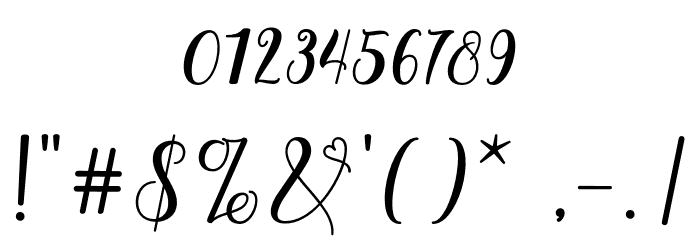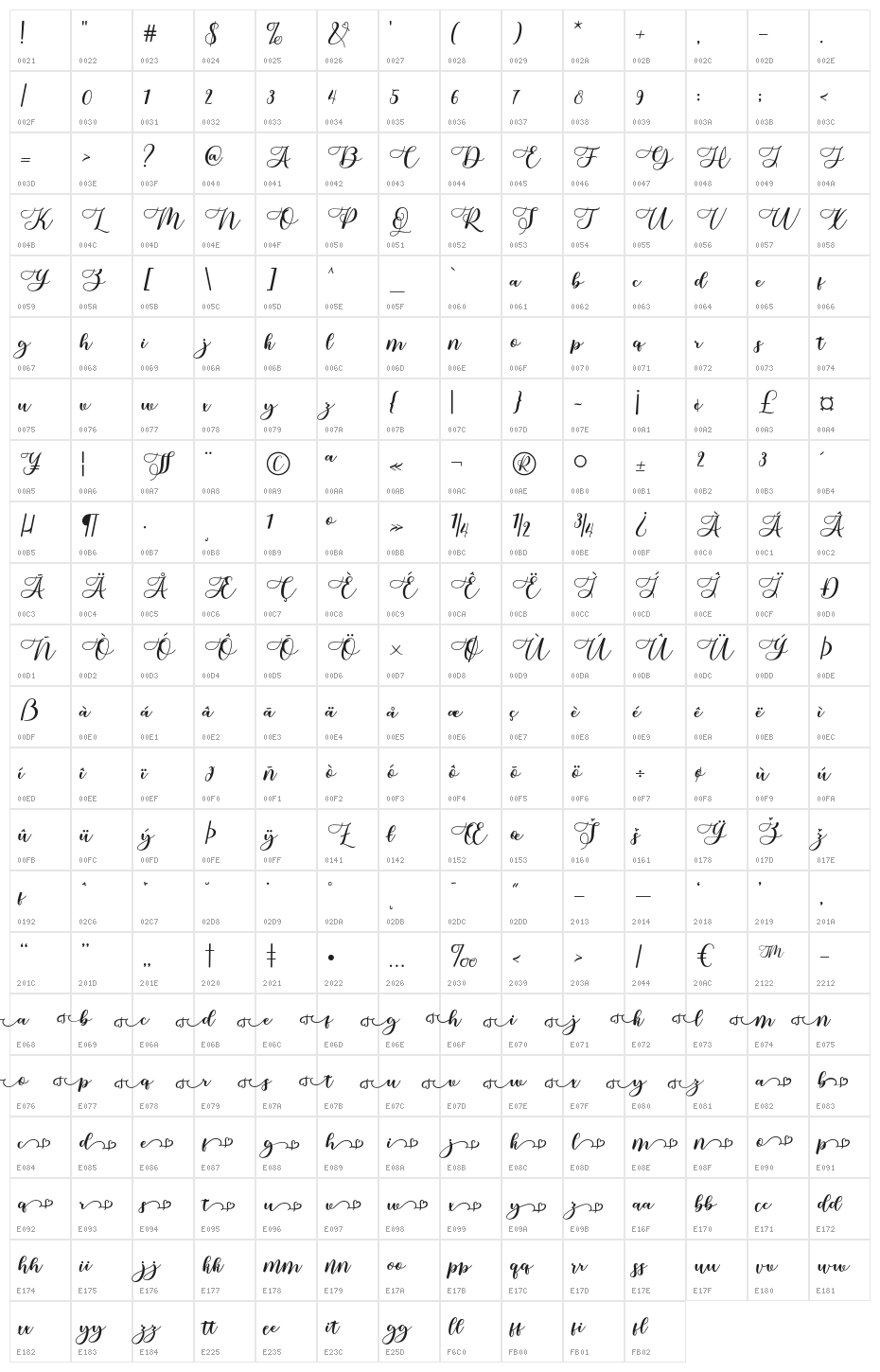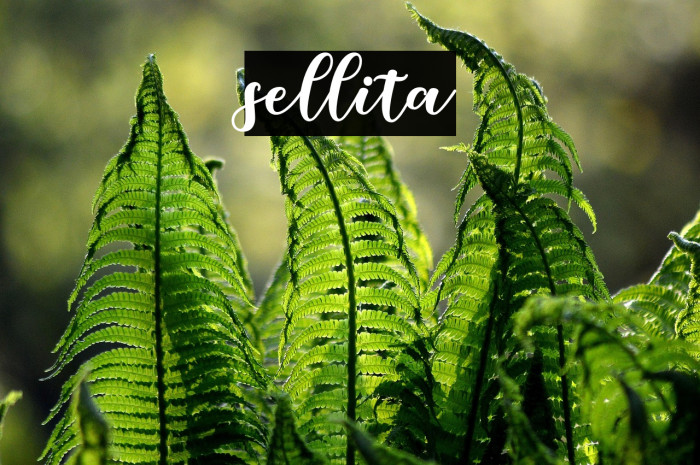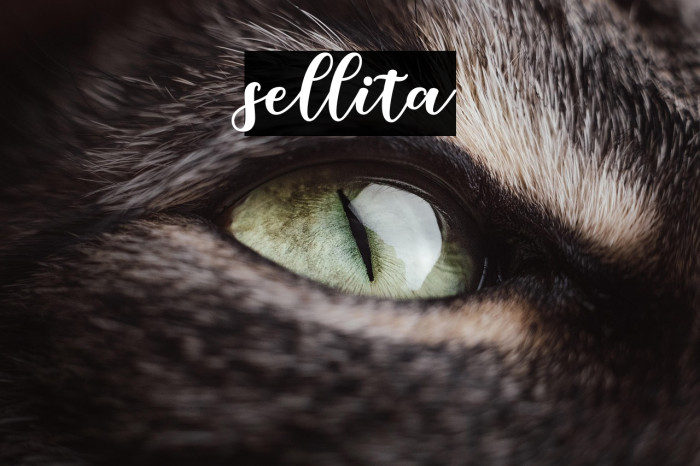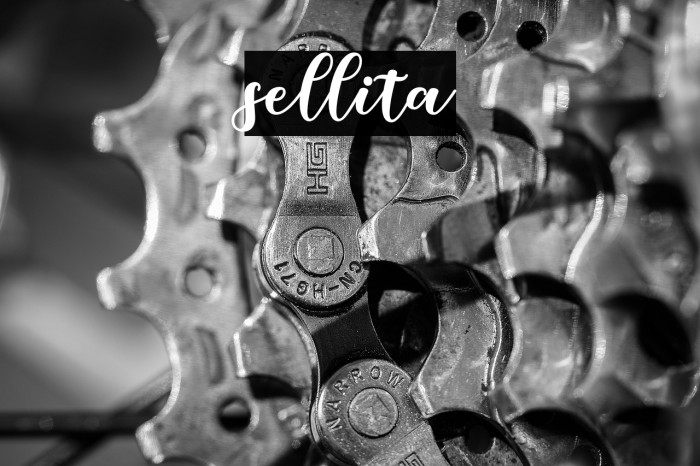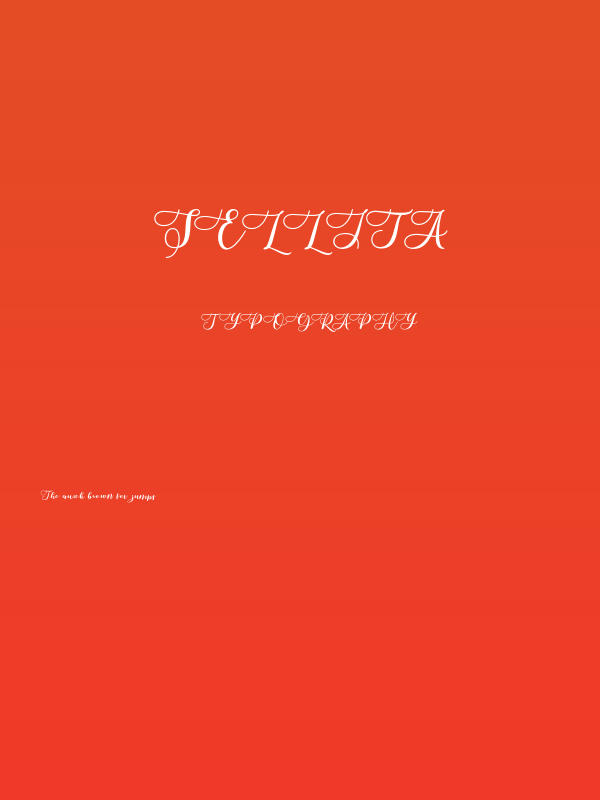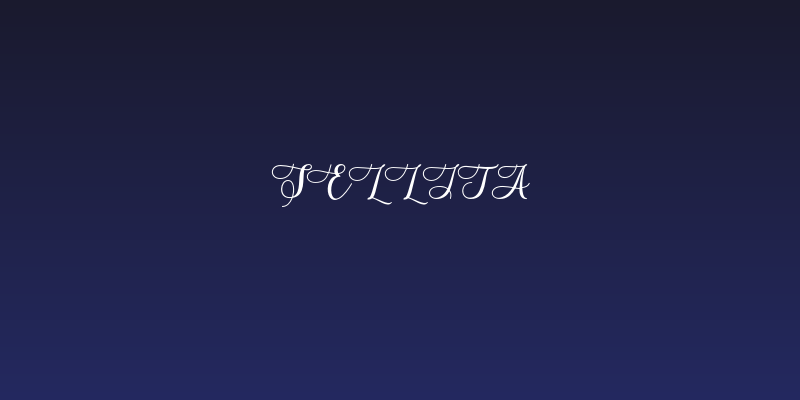
sellita Font
sellita Description
This elegant script font features flowing, interconnected letters that exude a sense of sophistication and grace. The uppercase letters are ornate with delicate swirls, while the lowercase letters maintain a smooth, cursive style. The numerals are consistent with the script's overall aesthetic, offering a harmonious blend of curves and loops. Special characters are designed to match the font's fluidity, making it ideal for decorative purposes. The font's overall appearance is both stylish and versatile, suitable for a variety of creative projects.
| Use Case | Logos, Invitations, Decorative Text |
| Proposed Projects | Ideal for wedding invitations, elegant branding, greeting cards, and decorative signage. |